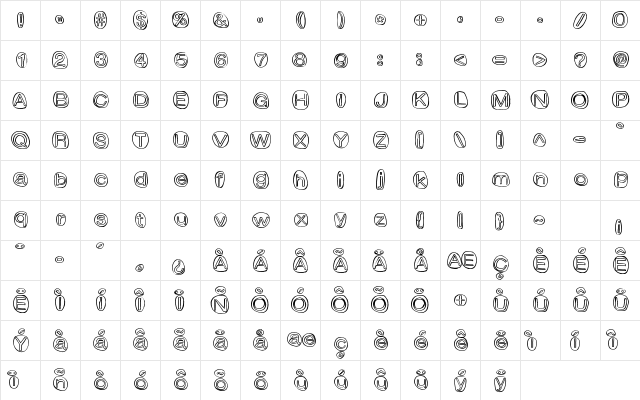
ClownShoes Regular Font Preview
ClownShoes Regular
ClownShoes Regular Font Details
| Foundry | Xerographer Fonts |
| Designer | Max Infeld - Xerographer Fonts |
Design Context for ClownShoes Typeface
ClownShoes is a composed and adaptable typeface that performs quietly and consistently across a wide range of design contexts.